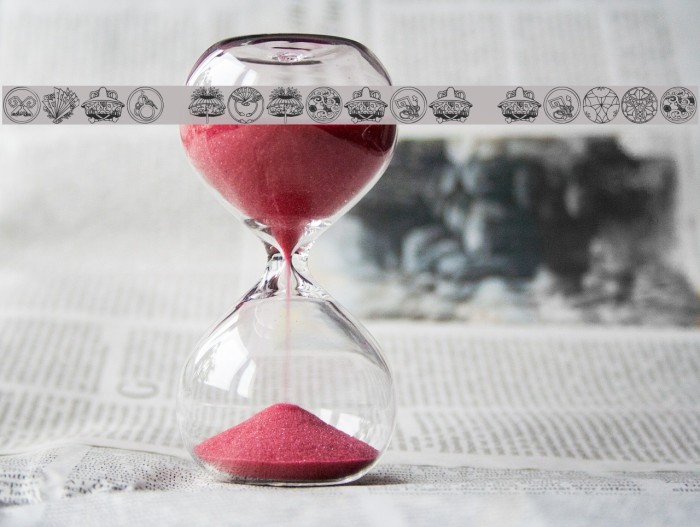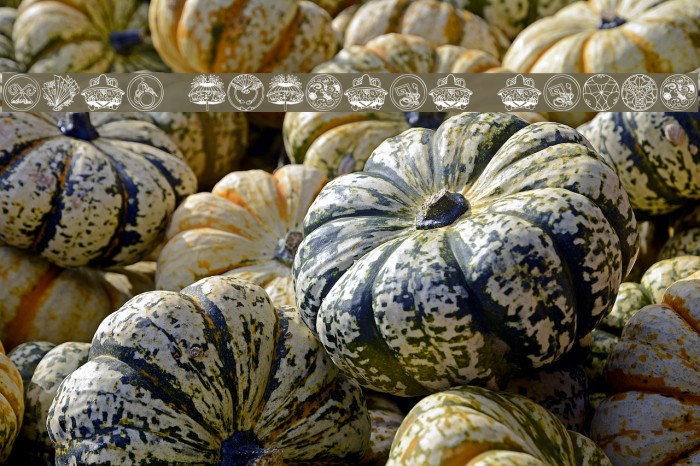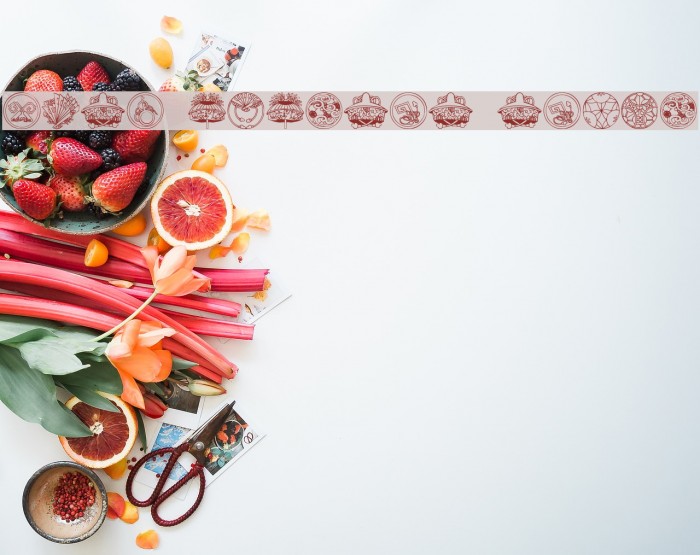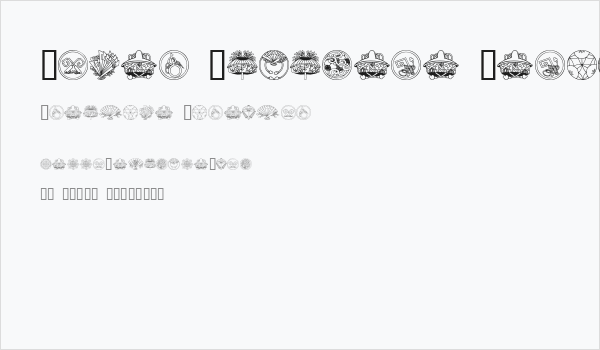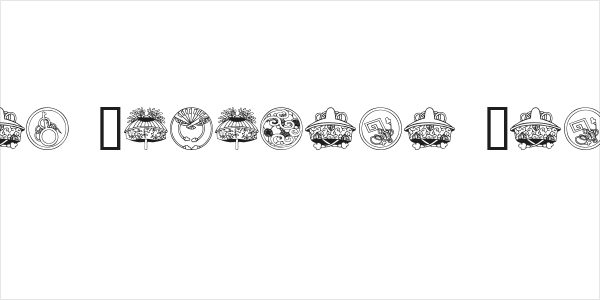
Dover Japanese Design Font
A decorative font featuring intricate circular emblems inspired by traditional Japanese design motifs, each glyph is a unique illustration rather than a standard letterform.
| Overall Style | Decorative, Ethnic, Artistic |
| Use Case | Logos, Decorative headings, Themed graphics |
| Proposed Projects | Branding for Asian-themed restaurants, cultural event posters, packaging, decorative invitations, art projects. |